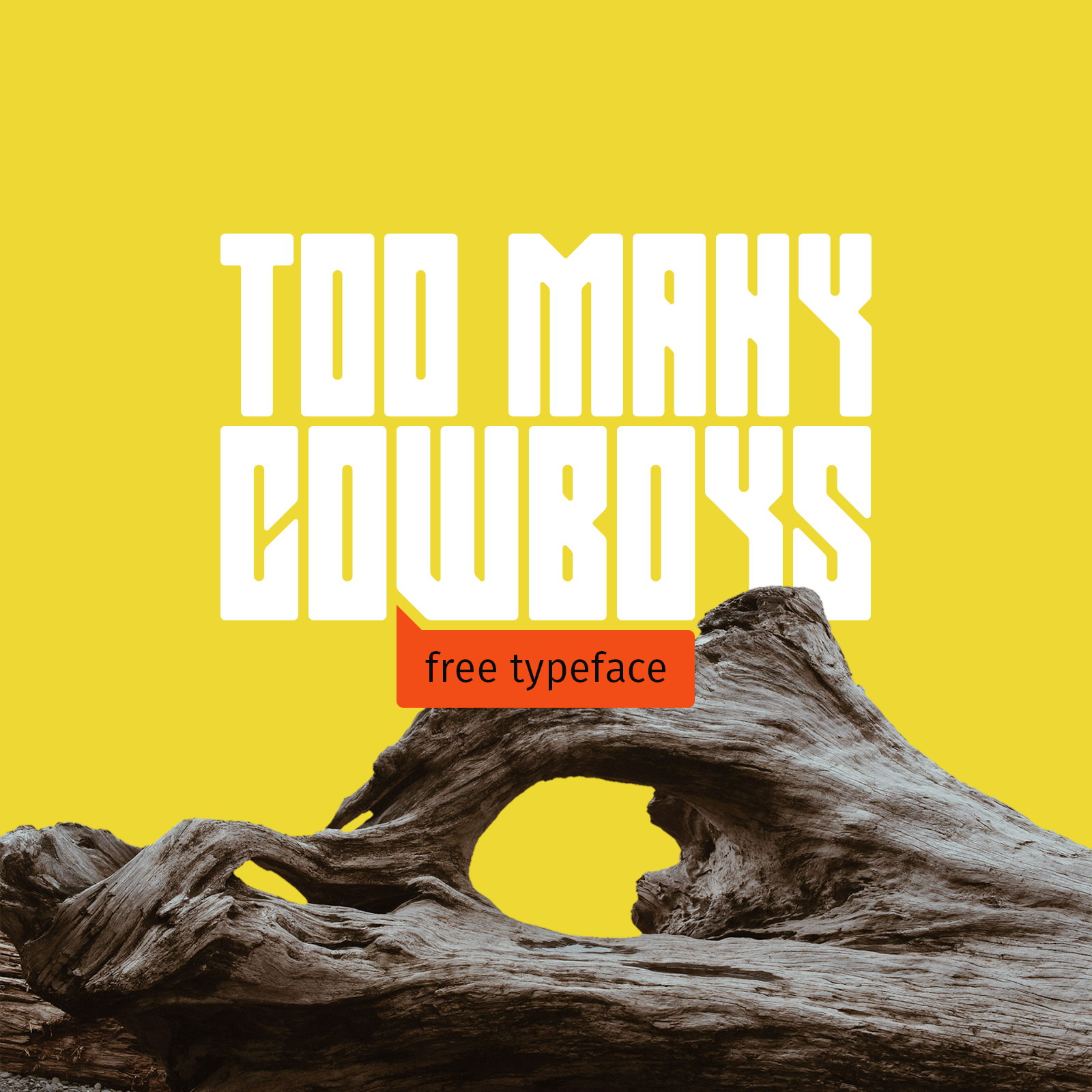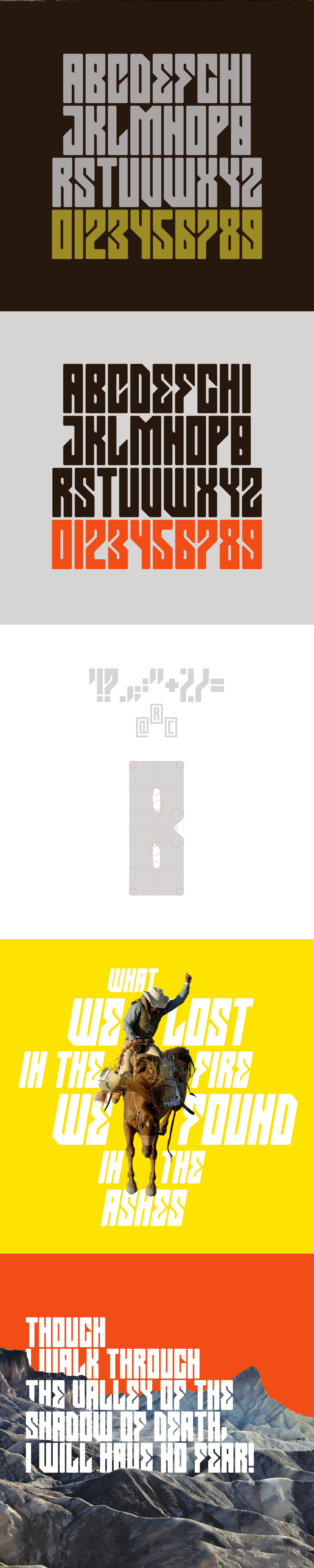
Free Too Many Cowboys Font
Too Many Cowboys is an uppercase display font with a bold look and creative forms. It can be suitable for logos, badges, posters, packaging, headlines, t-shirts/apparel, etc.